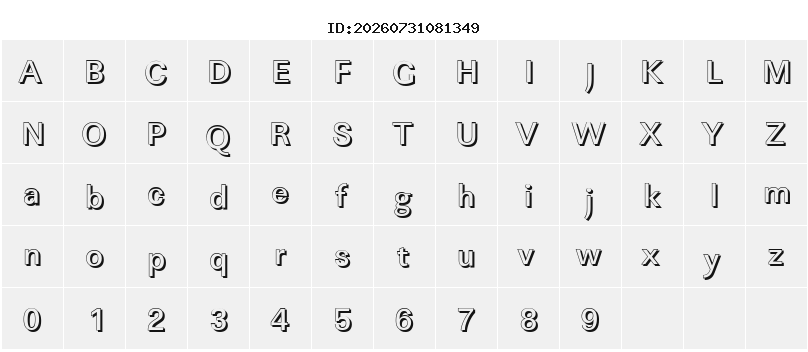
LinearSh-Medium Preview
• Font Name: LinearSh-Medium
• Full Font Name: LinearSh-Medium-Regular
• Designer: SoftMaker Software GmbH
• Manufacturer: SoftMaker Software GmbH
About LinearSh-Medium.ttf
LinearSh-Medium.ttf is a modern, elegant sans-serif font designed for ultimate readability and visual harmony. Perfect for branding, headlines, web design, and print materials.